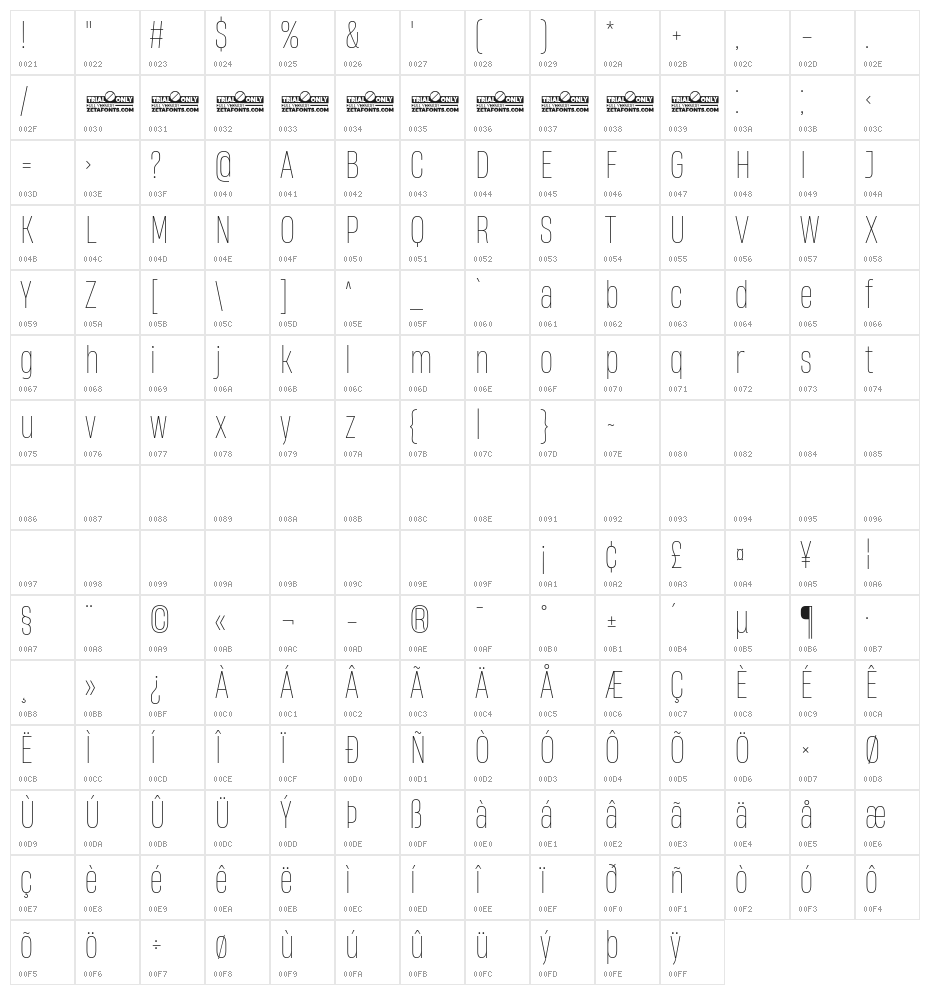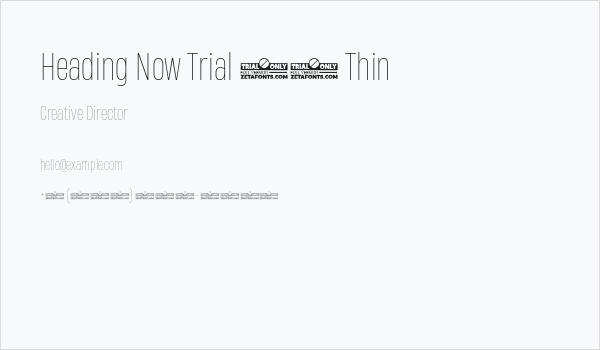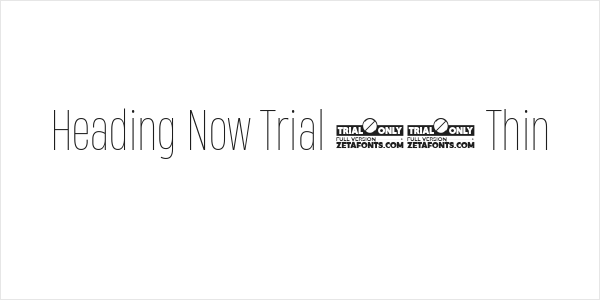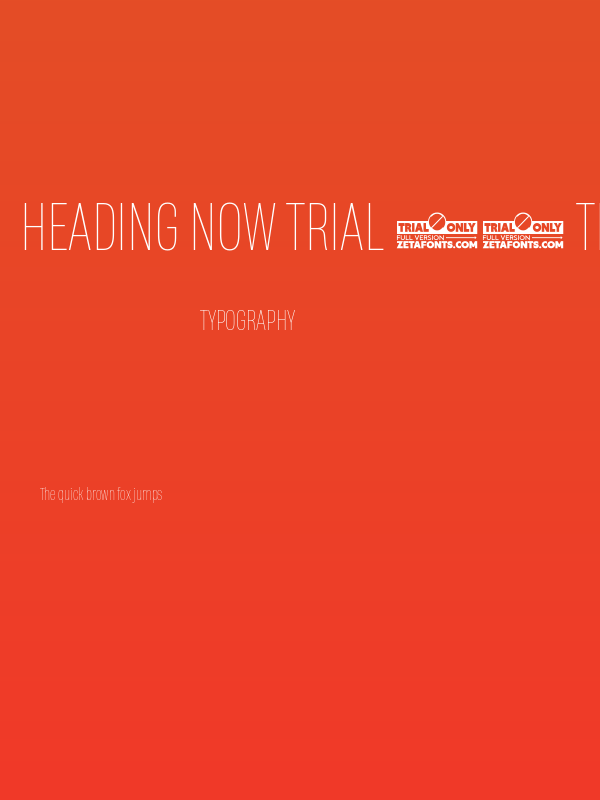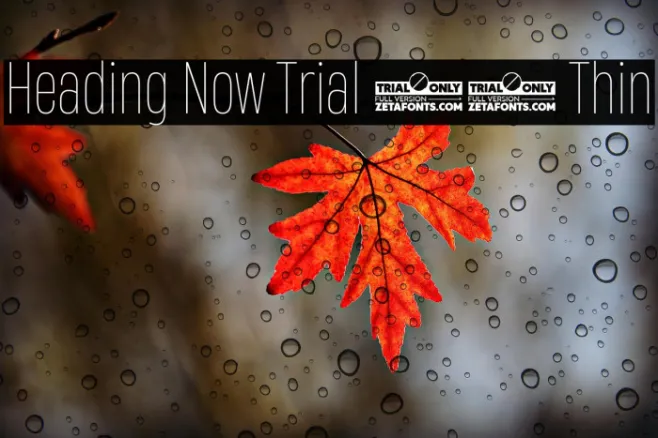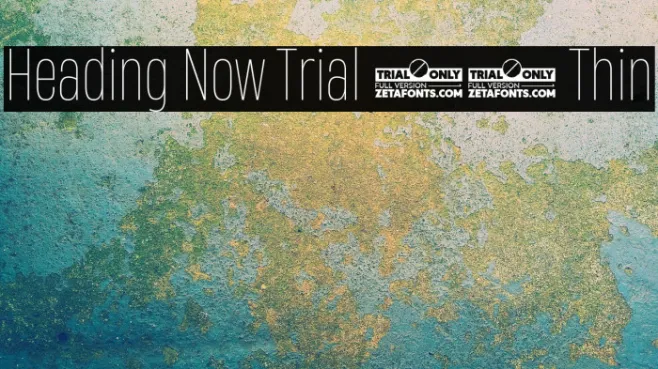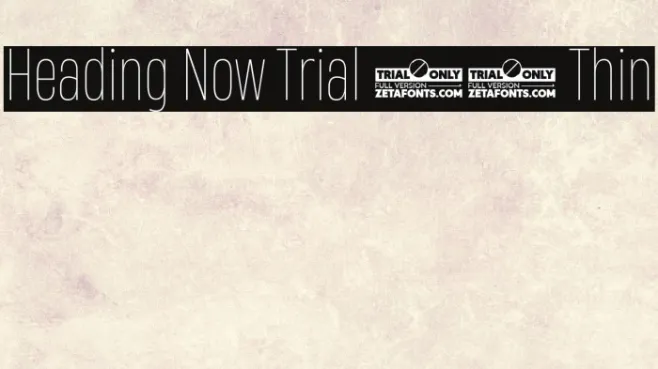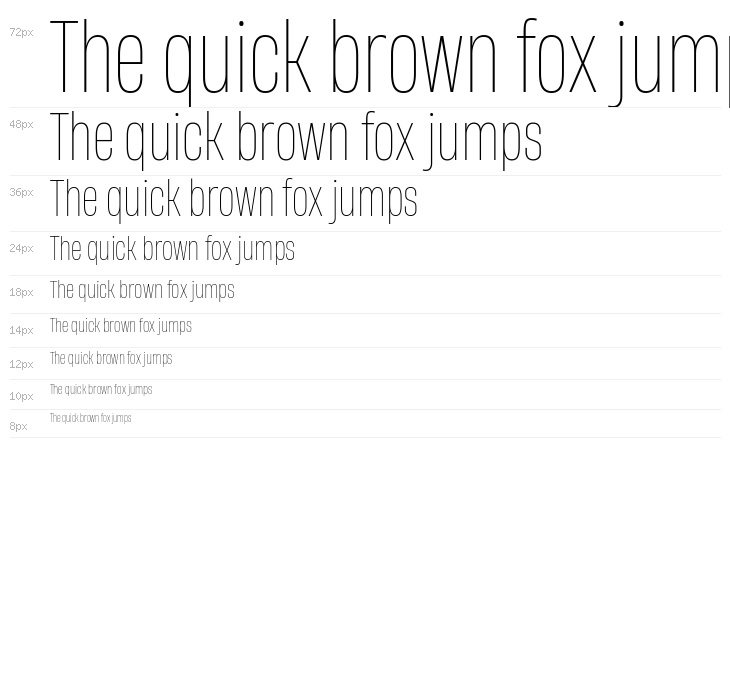
Heading Now Trial 41 Thin Font
Heading Now Trial 41 Thin Description
This font features a sleek and modern design with thin, elongated letterforms that convey a sense of elegance and sophistication. The characters are uniformly narrow, giving the font a condensed appearance. The uppercase and lowercase letters maintain a consistent style, with clean lines and minimal contrast in stroke thickness. The special characters and numbers are designed to match the overall aesthetic, ensuring a cohesive look across all text elements. This font is ideal for projects that require a contemporary and stylish touch.
| Proposed Projects | Ideal for fashion magazines, luxury branding, minimalist posters, and modern web design. |